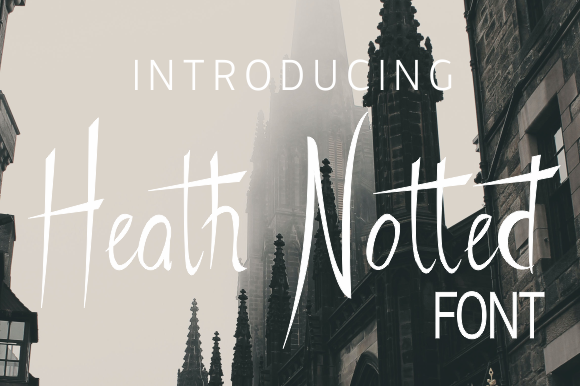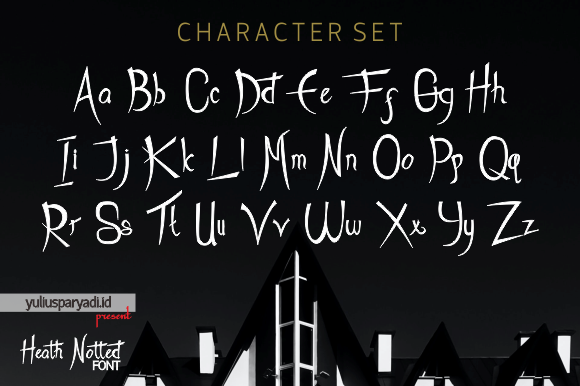
About Heath Notted Font
Heath Notted is a lovely and sweet handwritten font. It has well balanced characters, and as a result, it matches a wide range of projects. Add it to your favorite ideas and notice how it makes them stand out!